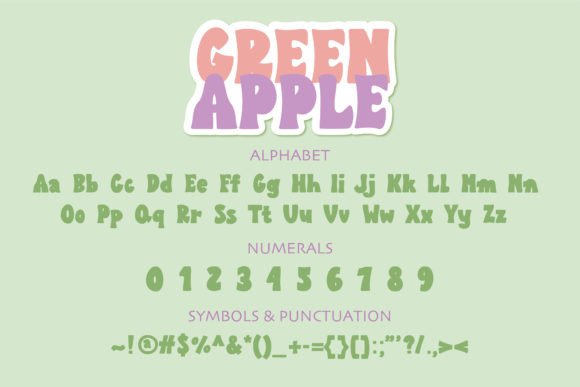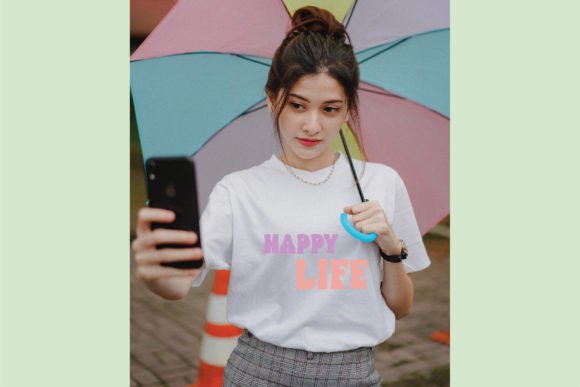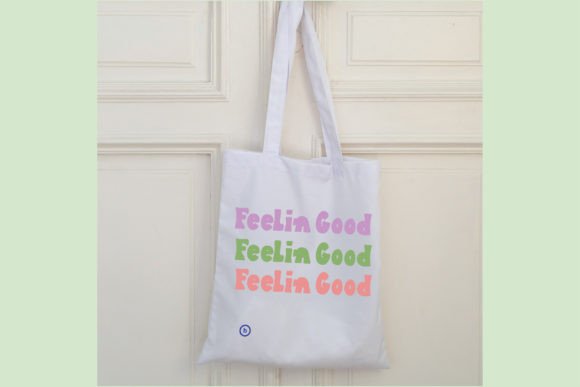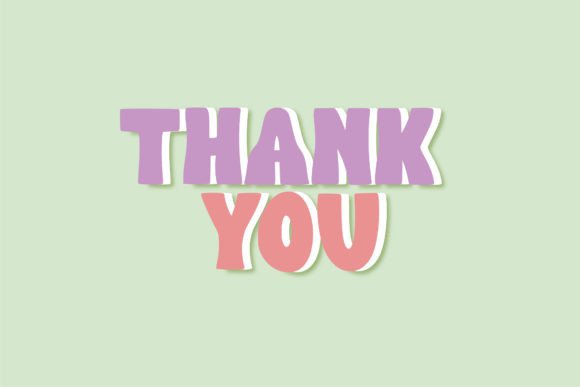
Introducing Green Apple Font: The Perfect Casual Handwritten Style for Your Designs
Are you a designer or crafter looking for a unique and natural font to elevate your creative projects? Look no further than the Green Apple Font! This casual handwritten font is designed to bring a touch of warmth and personality to your designs, making it incredibly versatile and adaptable to a wide range of applications.
The Characteristics of Green Apple Font
Green Apple Font boasts a distinct natural and unique style that sets it apart from other fonts. Its casual handwritten aesthetic gives it a friendly and approachable feel, making it perfect for designs that require a personal touch. The font’s irregularities and subtle variations in letterforms create a sense of authenticity and human touch, which can help to establish an emotional connection with your audience.
What Makes Green Apple Font So Versatile?
The beauty of Green Apple Font lies in its incredible versatility. Its natural and unique style makes it incredibly fitting to a large pool of designs, from rustic and vintage-inspired projects to modern and minimalist ones. Whether you’re creating a logo, a poster, a social media graphic, or a digital journal entry, Green Apple Font can add a touch of personality and whimsy to your work.
Here are just a few examples of the many design applications where Green Apple Font can shine:
• Branding and Logo Design: Use Green Apple Font to create a unique and memorable logo that reflects your brand’s personality and values.
• Stationery and Invitations: Add a personal touch to your stationery, invitations, and greeting cards with Green Apple Font’s charming handwritten style.
• Social Media Graphics: Create eye-catching social media graphics, such as quotes, posters, and ads, that showcase your brand’s personality and style.
• Digital Journals and Planners: Use Green Apple Font to add a touch of warmth and personality to your digital journals and planners.
The Benefits of Using Green Apple Font
So why choose Green Apple Font for your design projects? Here are just a few benefits of using this versatile and charming font:
• Unique and Memorable: Green Apple Font’s natural and unique style makes it stand out from more traditional fonts, helping your designs to be more memorable and engaging.
• Emotional Connection: The font’s handwritten aesthetic can help to establish an emotional connection with your audience, creating a sense of warmth and approachability.
• Flexibility: Green Apple Font can be used in a wide range of design applications, from digital projects to print materials.
• Ease of Use: This font is easy to read and works well in a variety of sizes, making it perfect for both digital and print applications.
Getting Started with Green Apple Font
Ready to start using Green Apple Font in your design projects? Here are a few tips to get you started:
• Experiment with Different Sizes: Try out different font sizes to see how Green Apple Font works in various applications.
• Pair it with Other Fonts: Experiment with pairing Green Apple Font with other fonts to create a unique and visually appealing combination.
• Use it in Digital and Print Applications: Don’t be afraid to use Green Apple Font in both digital and print applications, from social media graphics to business cards and brochures.
In conclusion, Green Apple Font is a versatile and charming casual handwritten font that can add a touch of personality and whimsy to your design projects. Its natural and unique style makes it incredibly fitting to a large pool of designs, and its benefits include being unique and memorable, establishing an emotional connection with your audience, and offering flexibility and ease of use. So why wait? Start exploring the creative possibilities of Green Apple Font today!